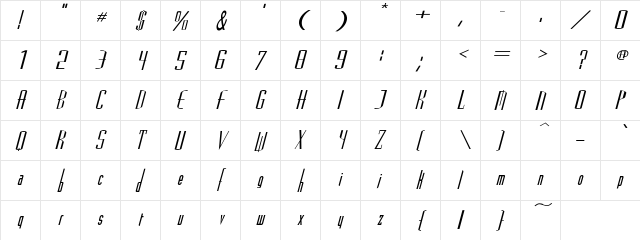
Picassos Italic Regular
Design Context for Picassos Italic Typeface
Picassos Italic is a composed and adaptable typeface that performs quietly and consistently across a wide range of design contexts. Its italic angle brings a sense of urgency and motion to the letterforms.